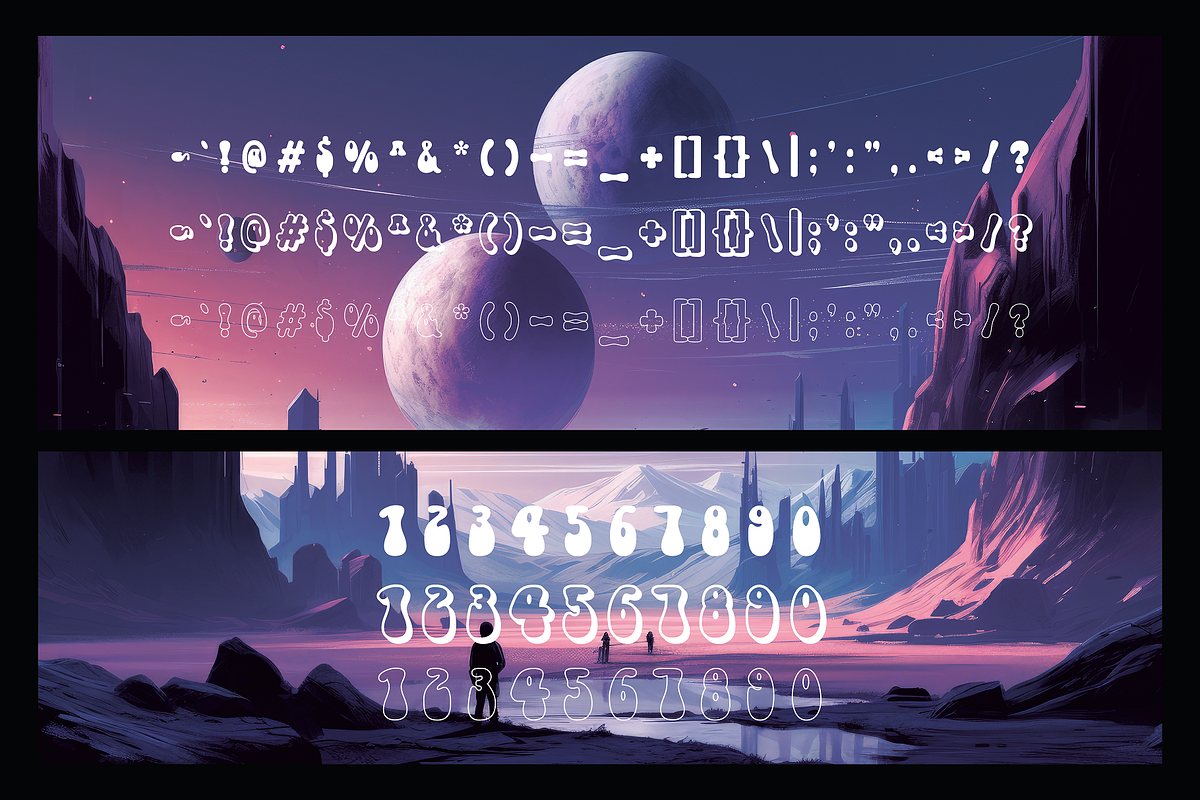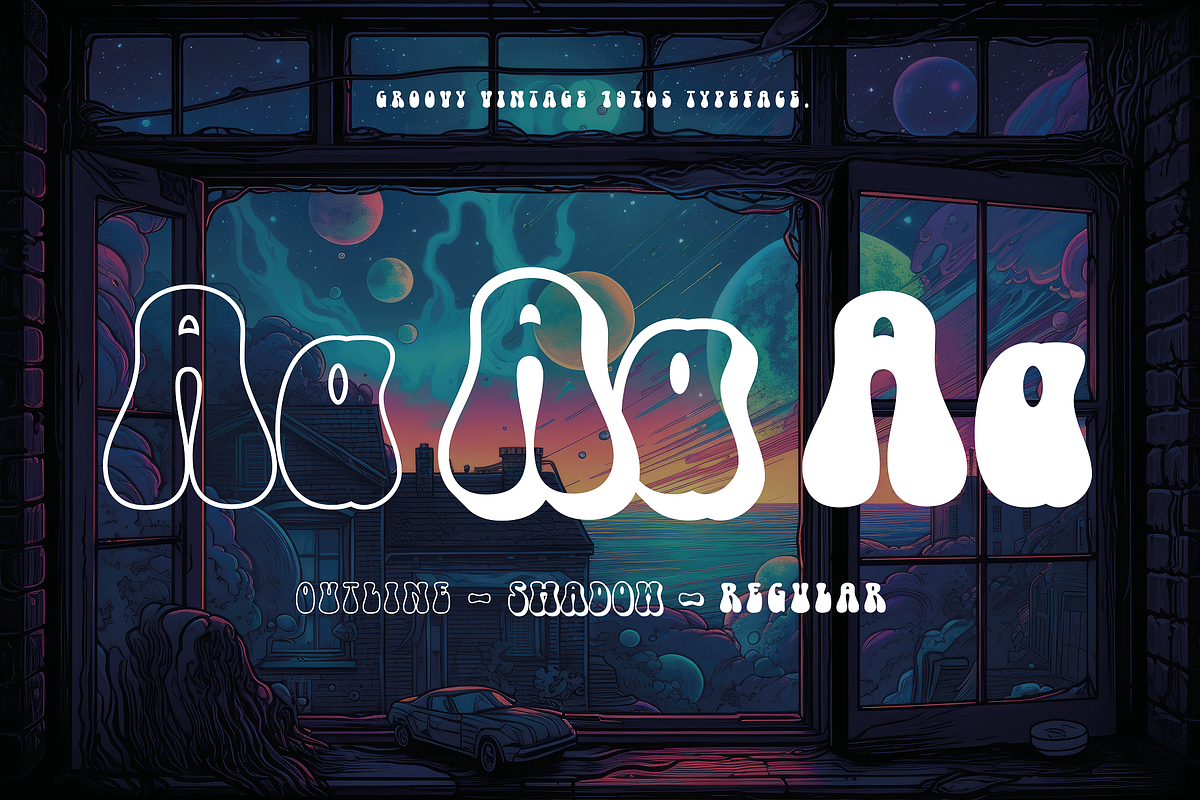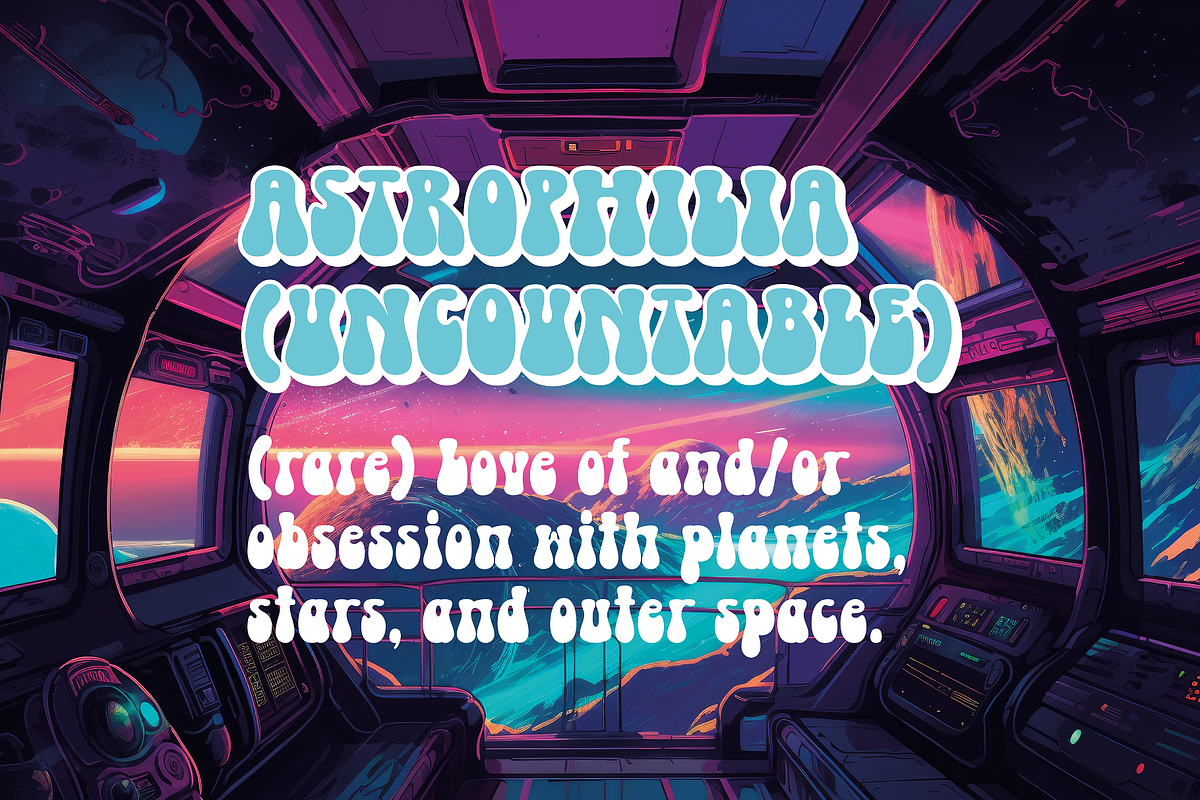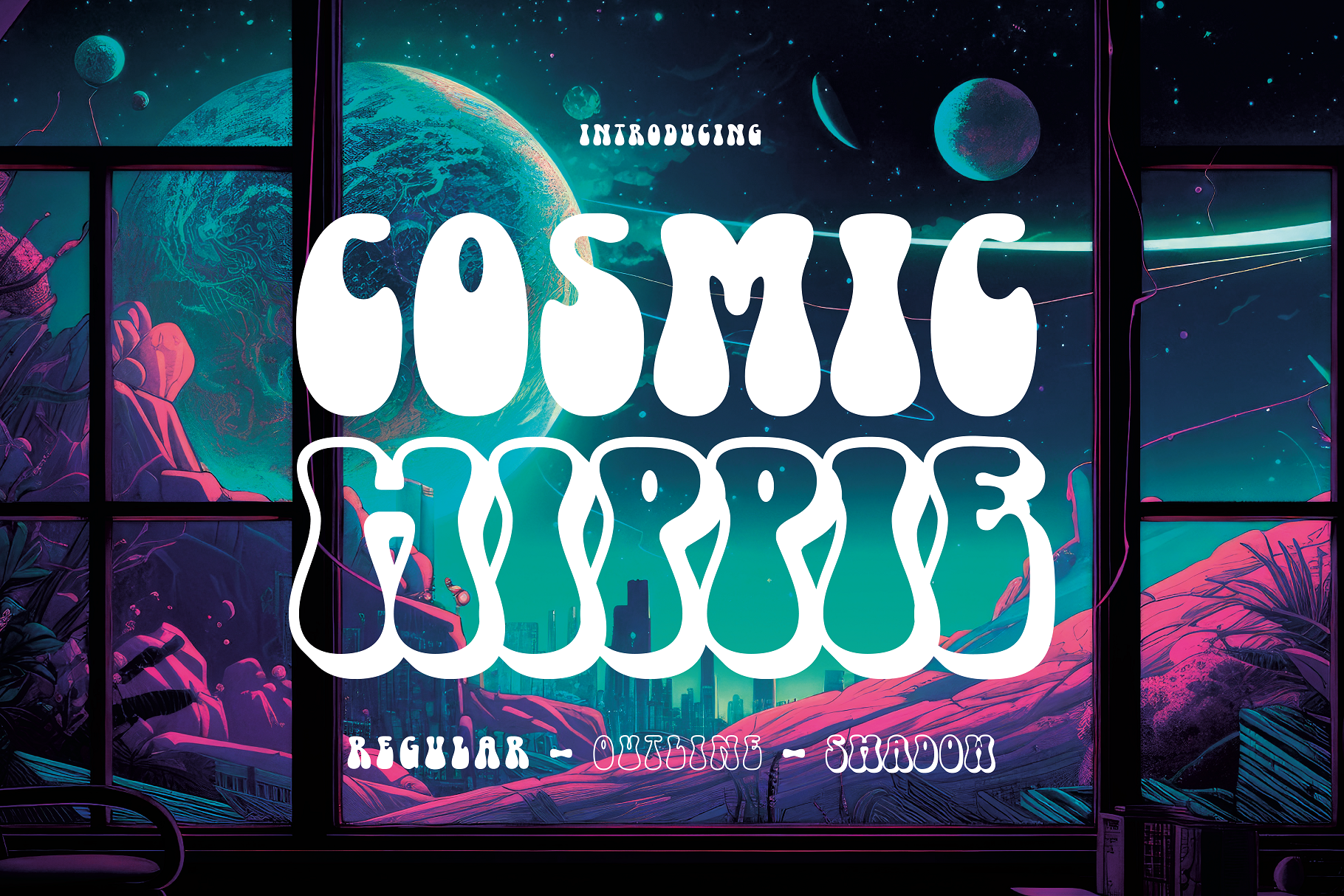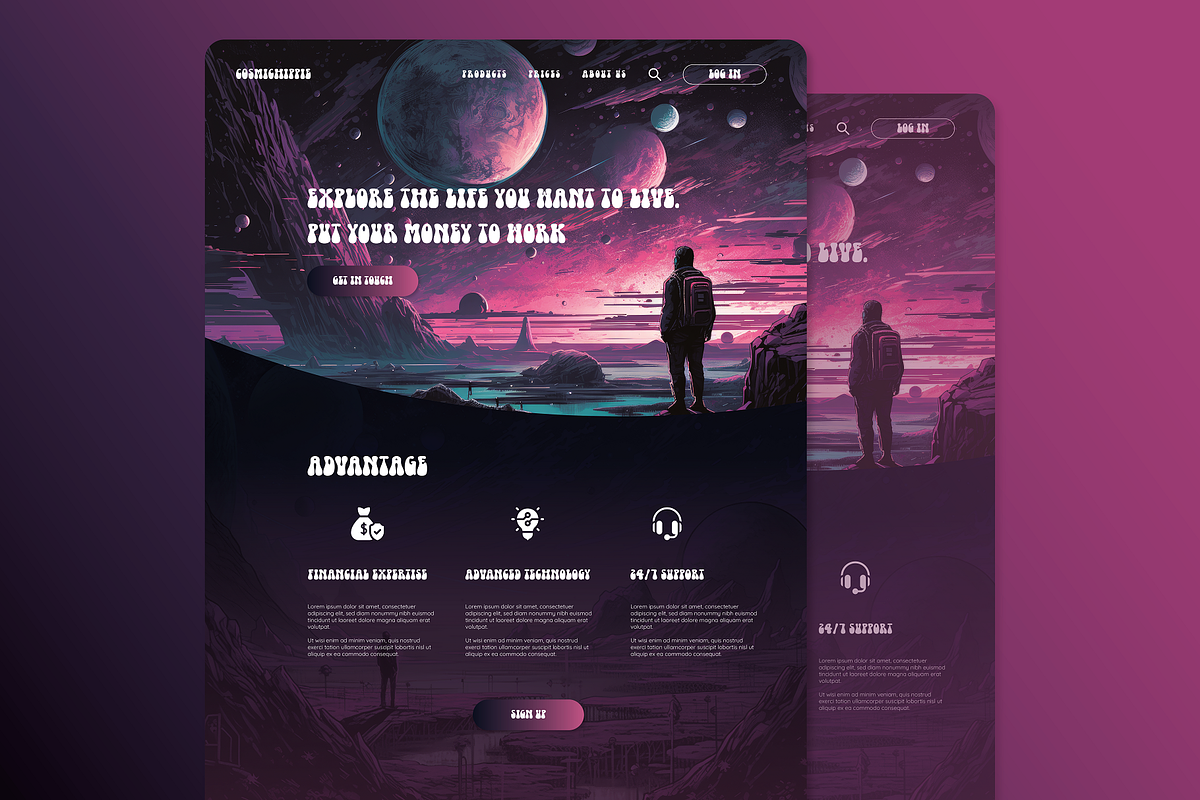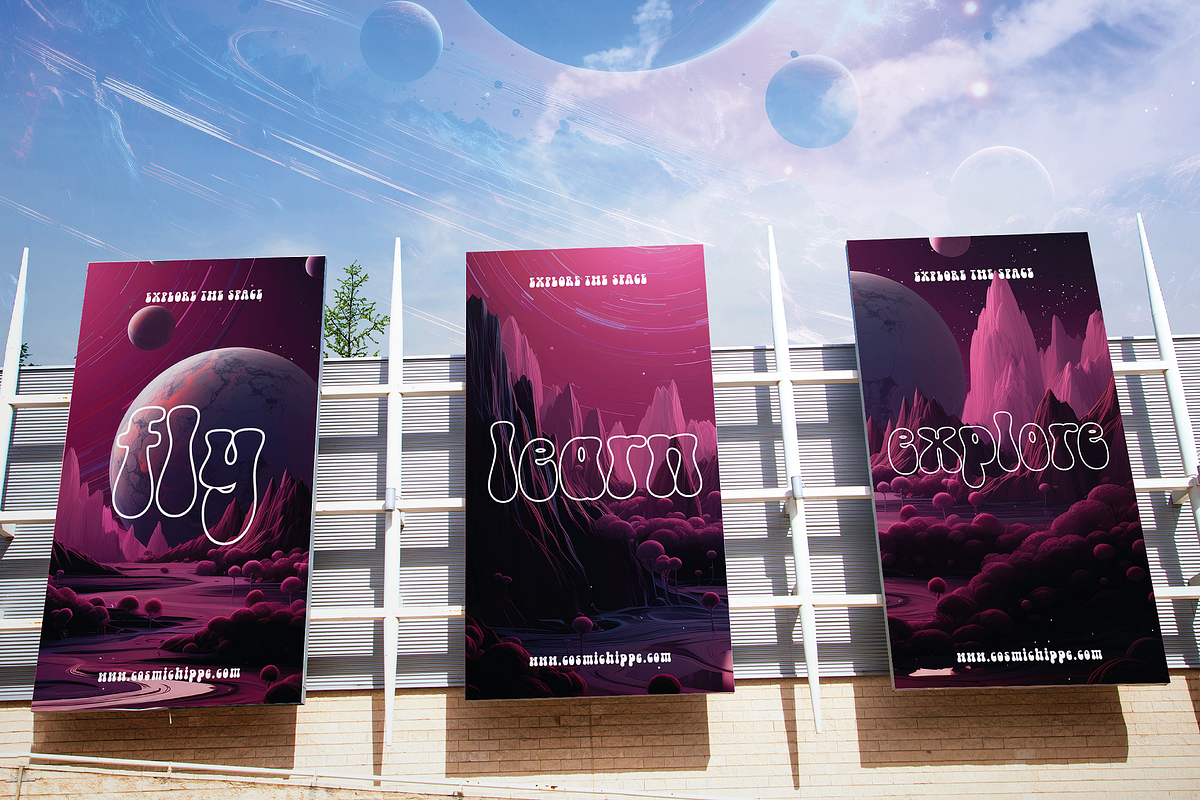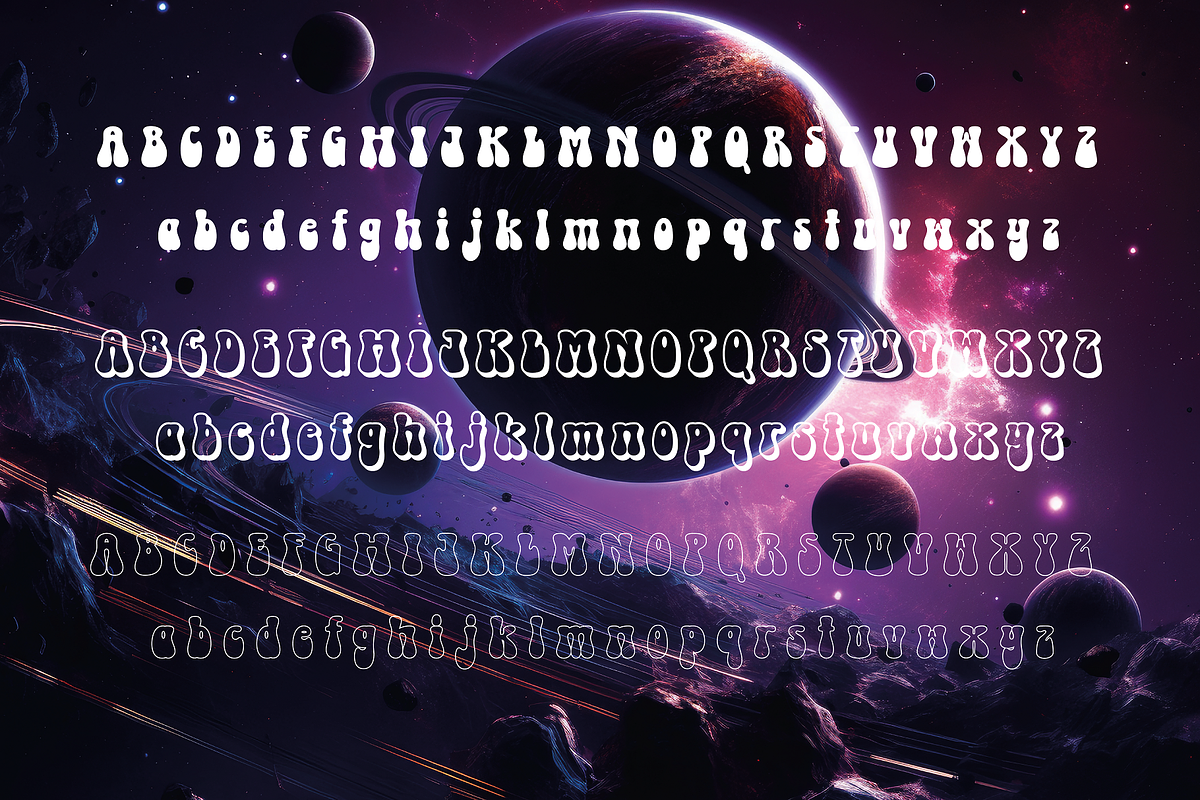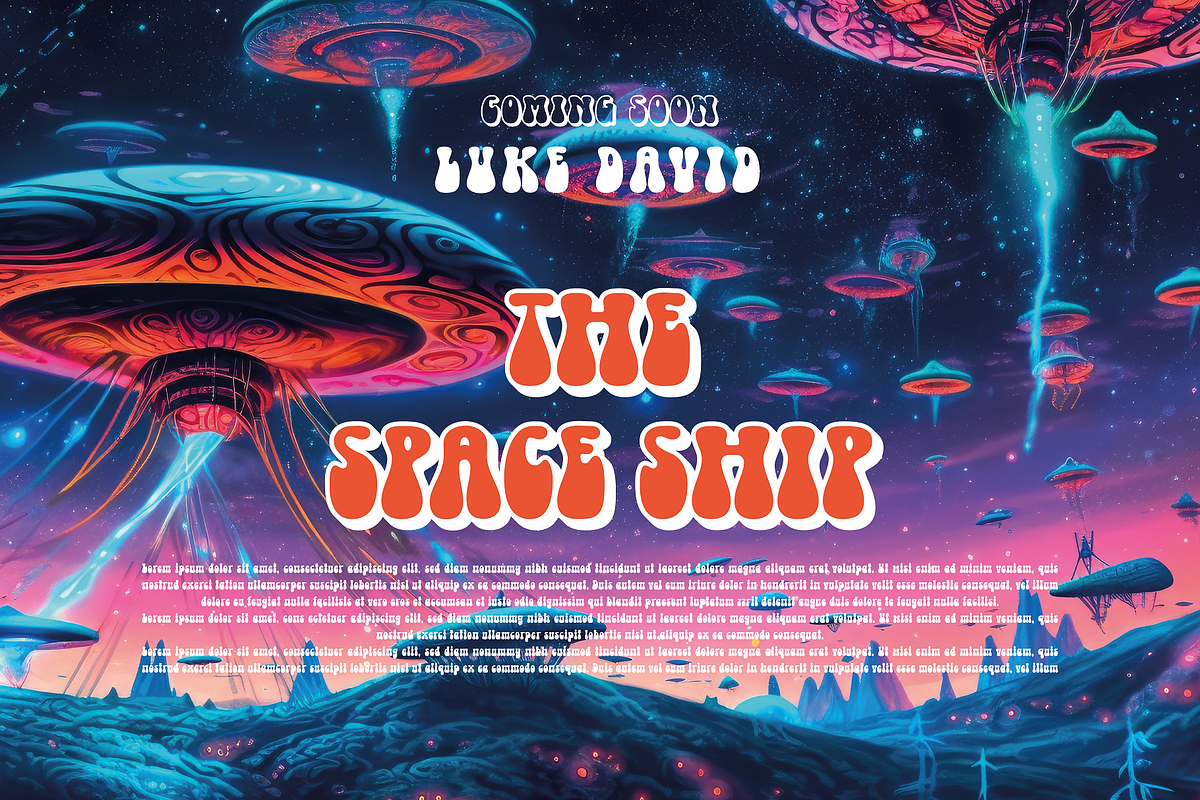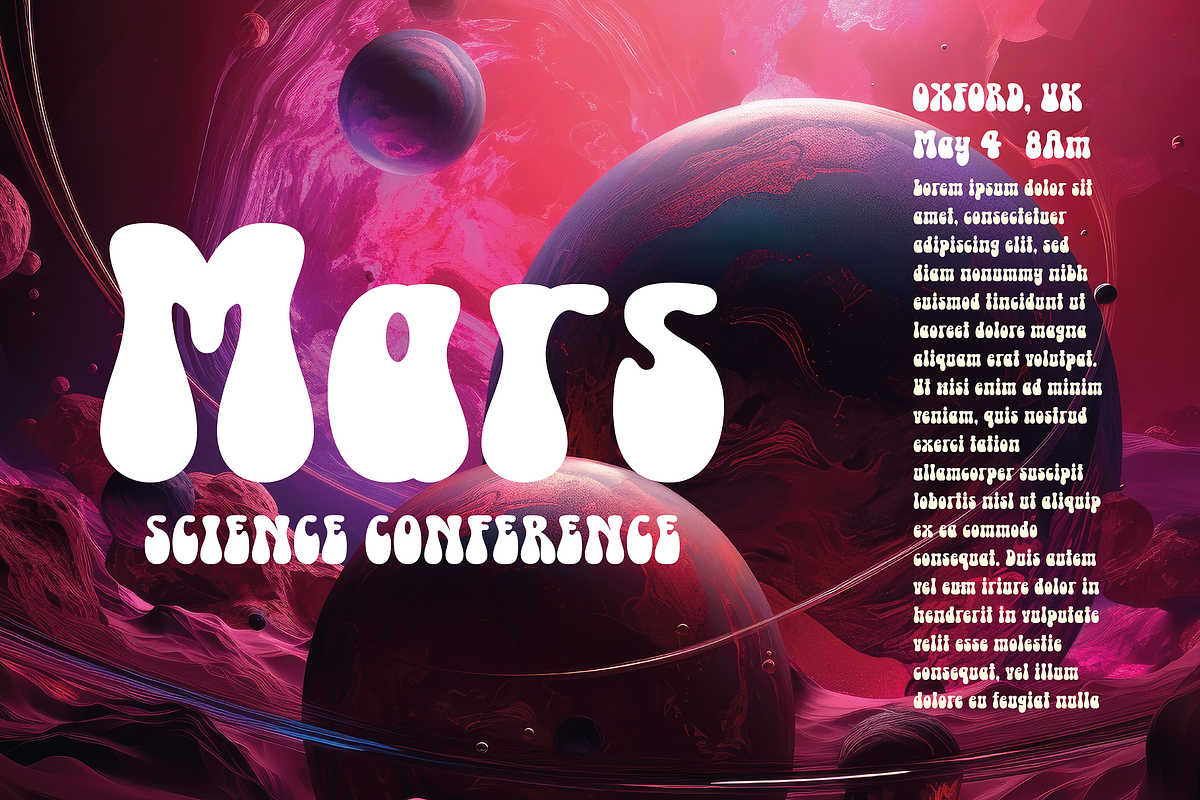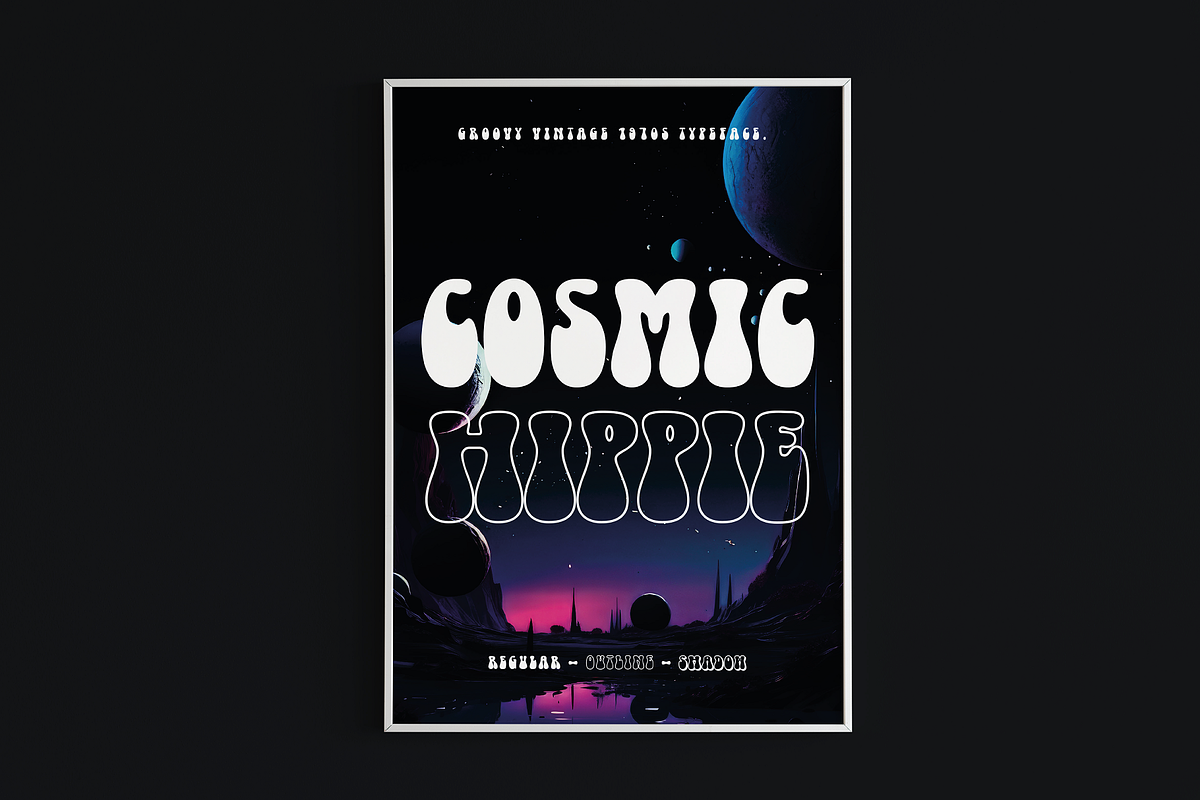
Cosmic Hippie - Groovy Font
Transport yourself back to the vibrant era of the 1970s with Comisc Hippie, a groovy font that embodies the essence of that extraordinary decade.
This typeface is a nostalgic journey through time, with its swirling curves and playful letterforms. Inspired by the counterculture movement, Comisc Hippie exudes a sense of peace, love, and individuality. Its bold and psychedelic style captures the free-spiritedness of the era, making it an ideal choice for adding a touch of retro charm to your designs.
Whether you're working on posters, album covers, or any project that calls for a dose of nostalgia, Comisc Hippie will transport you to a groovy world of colorful expression and timeless coolness. Let the spirit of the 70s shine through with this font that embodies the era's iconic aesthetics.